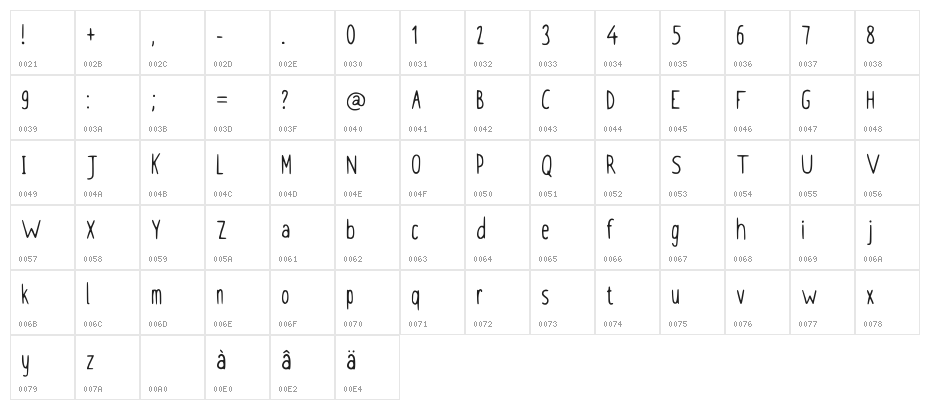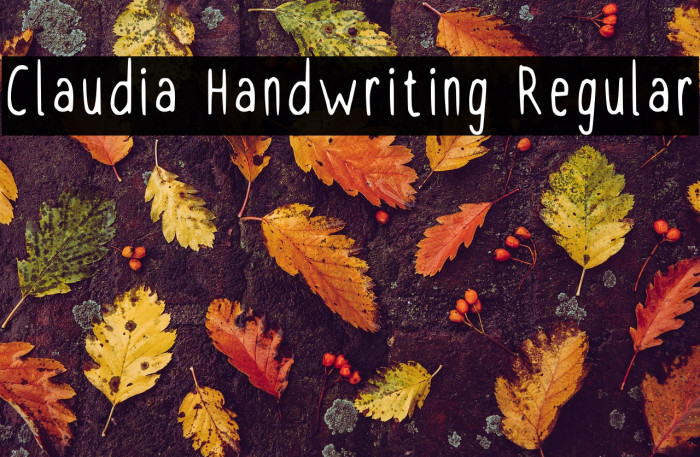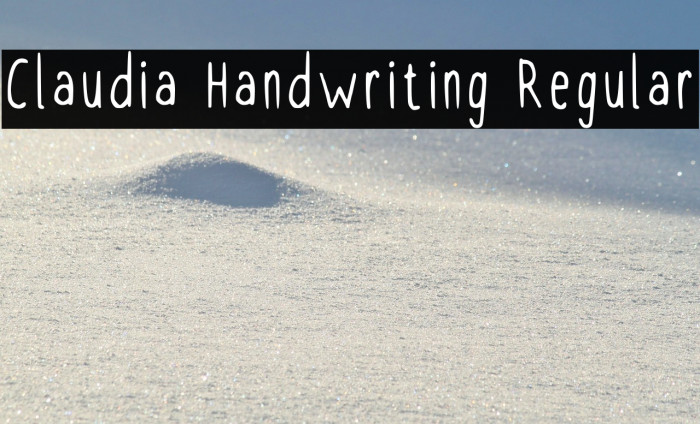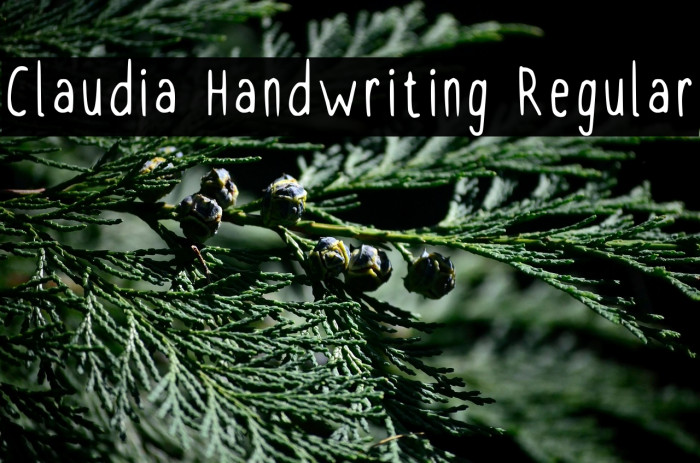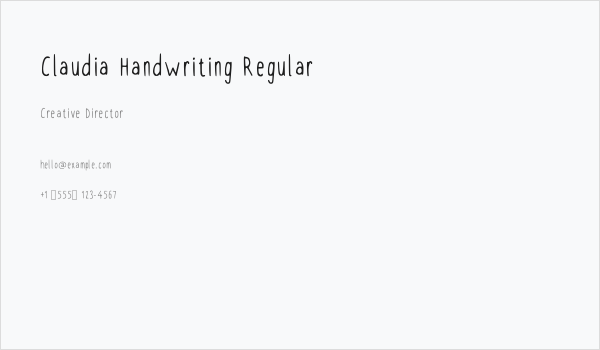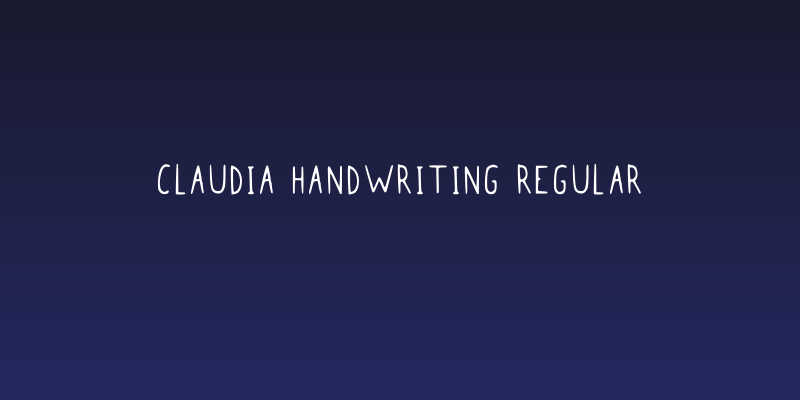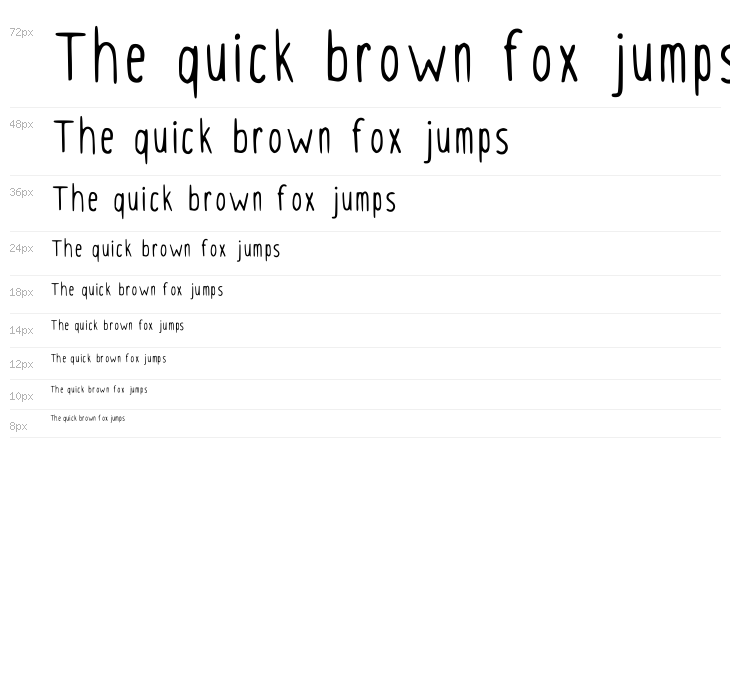
Claudia Handwriting Regular Font
Claudia Handwriting Regular Description
A casual, handwritten font with a playful and informal style, featuring slightly irregular strokes and a friendly appearance.
| Use Case | Informal text, Personal projects |
| Proposed Projects | Greeting cards, personal notes, informal invitations. |